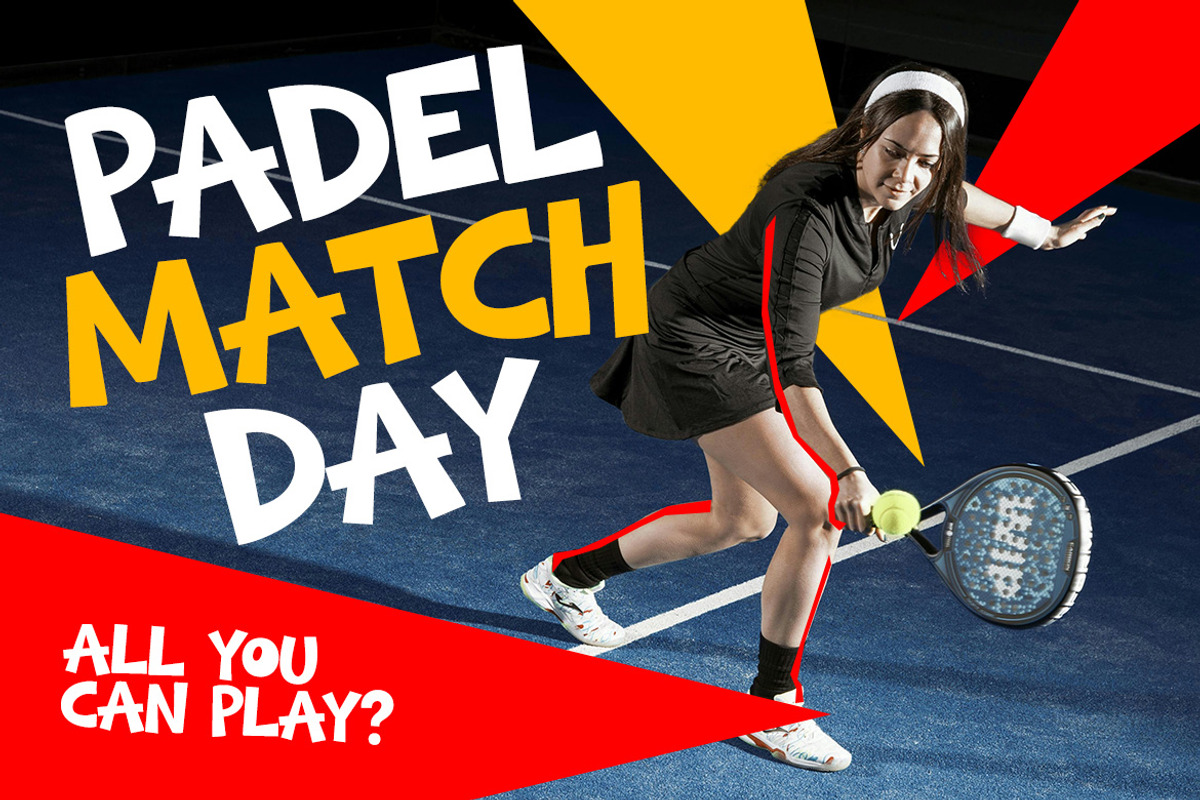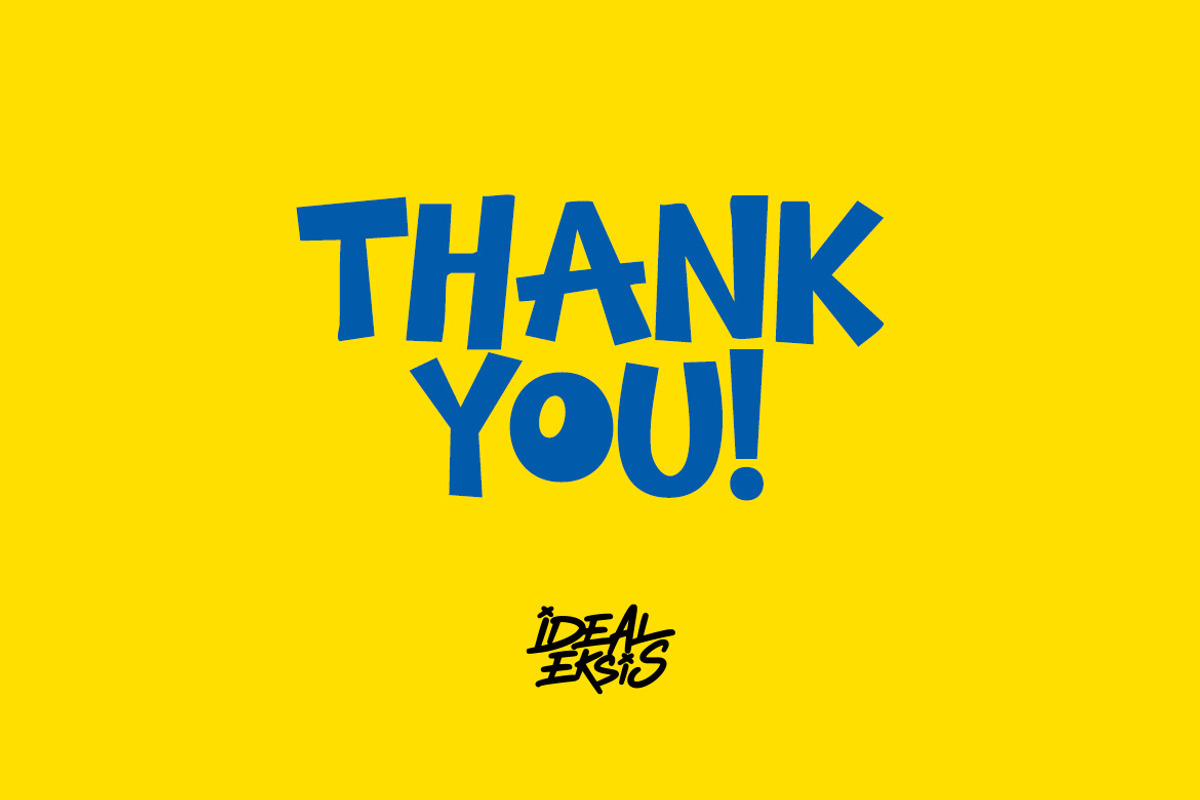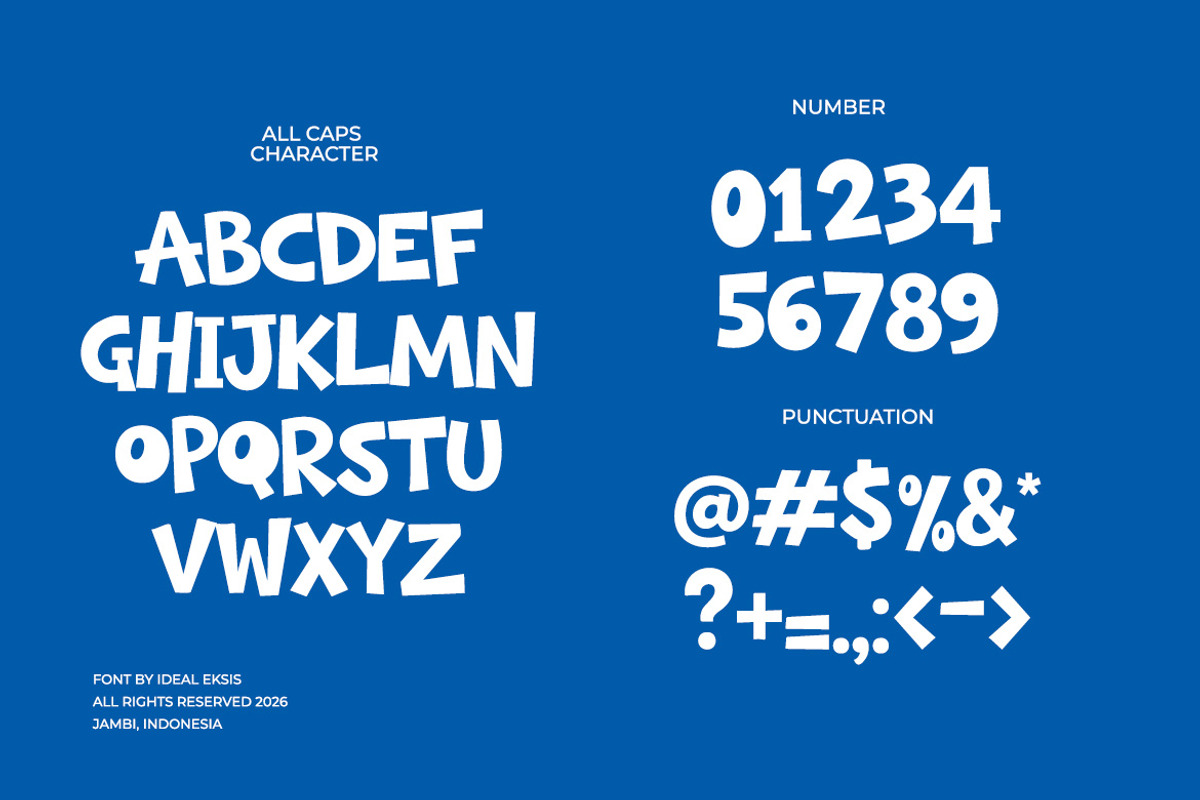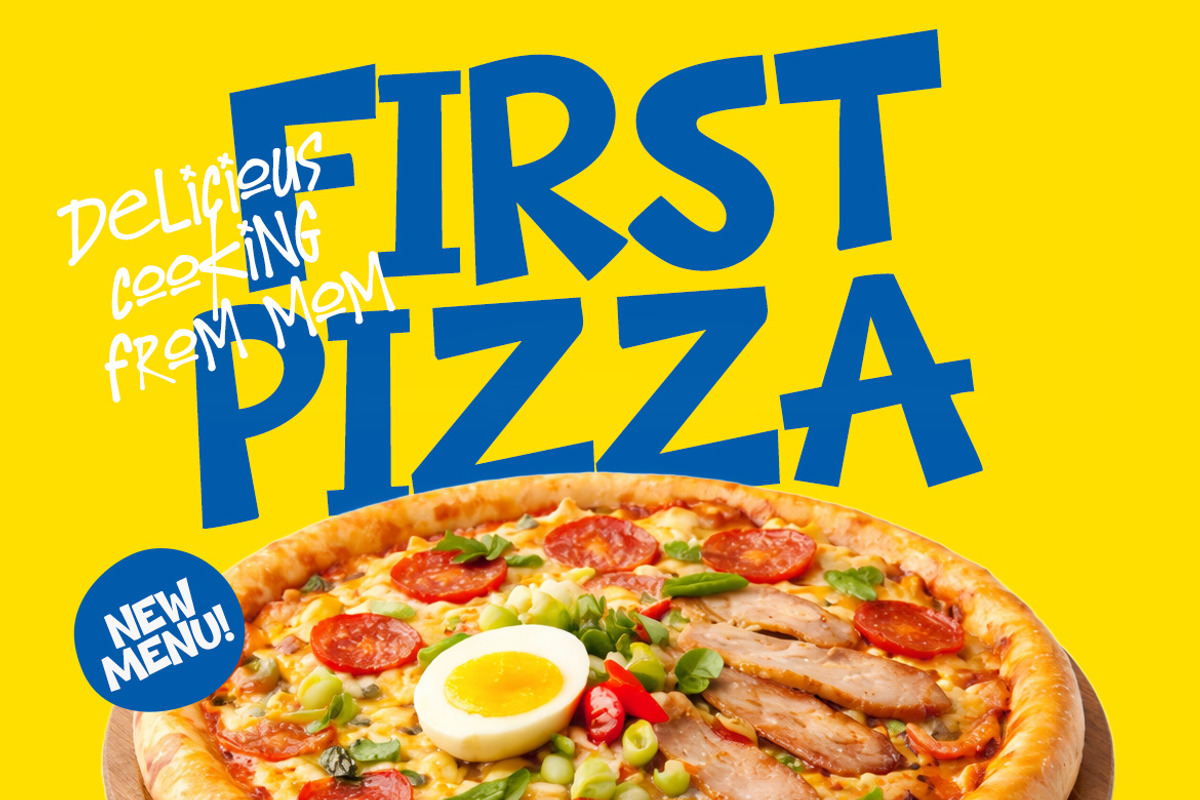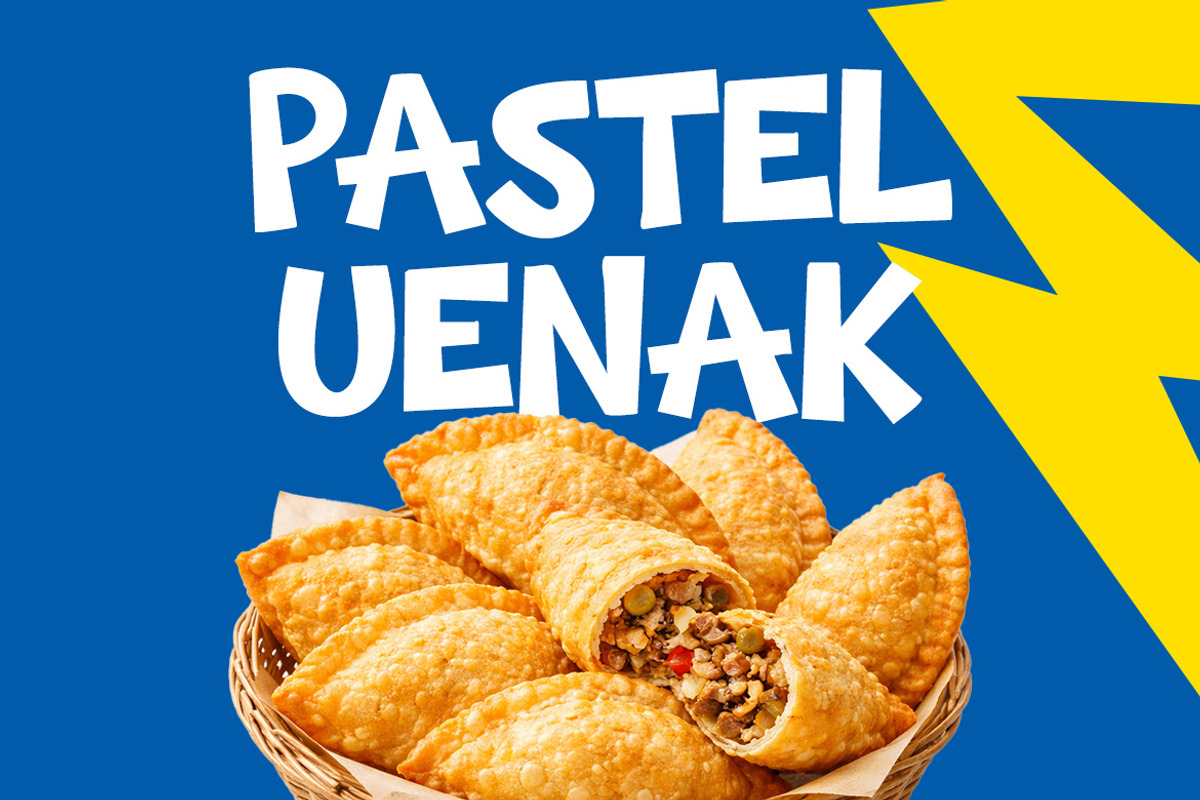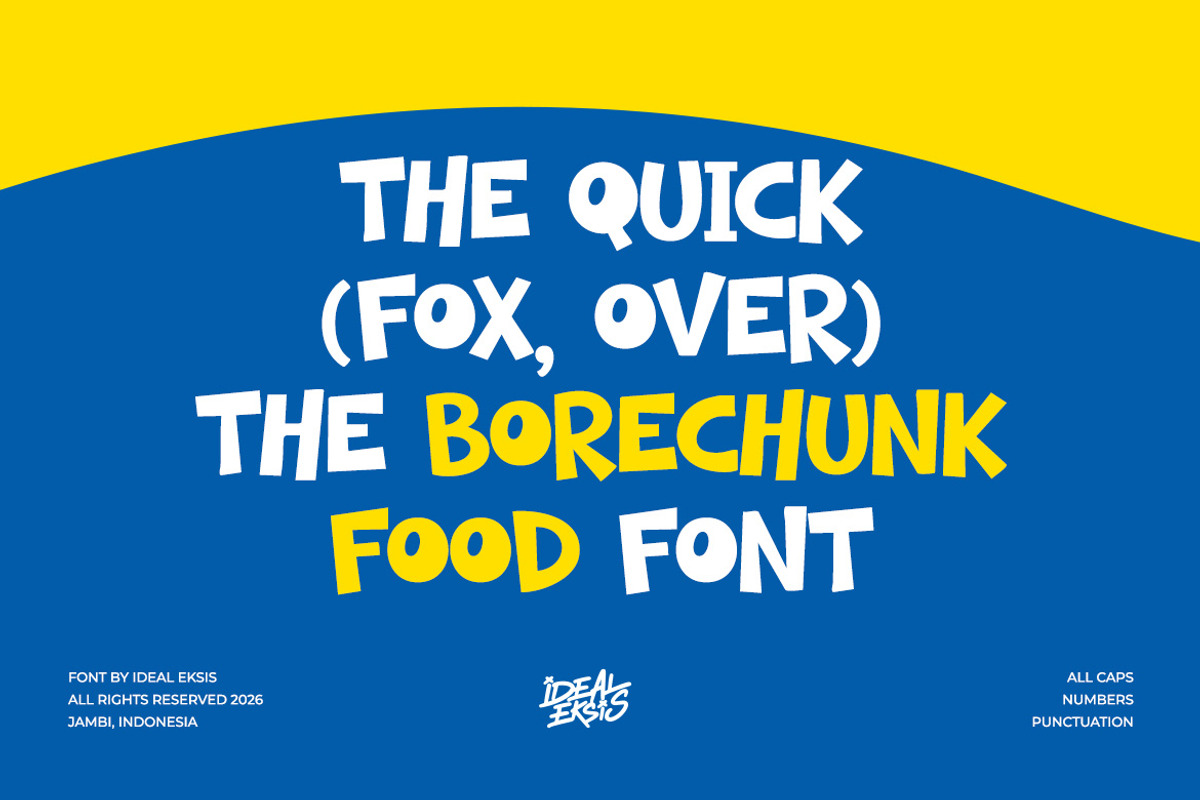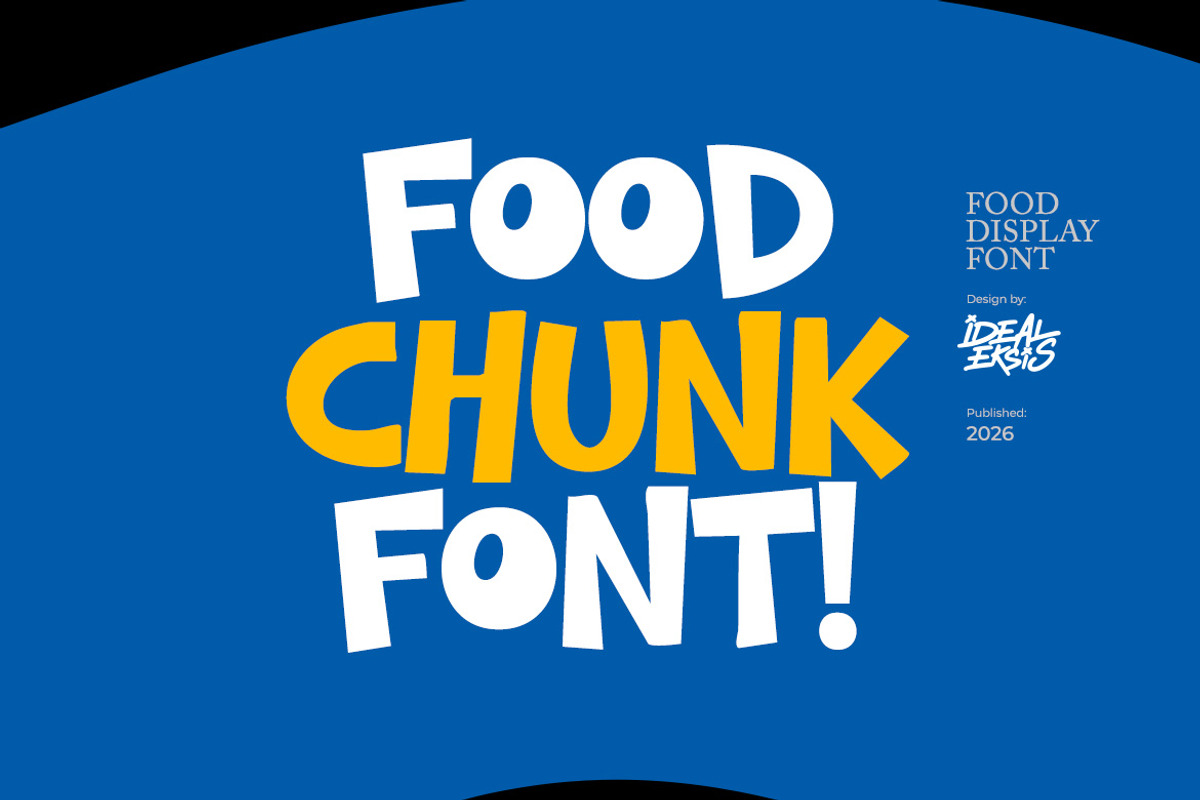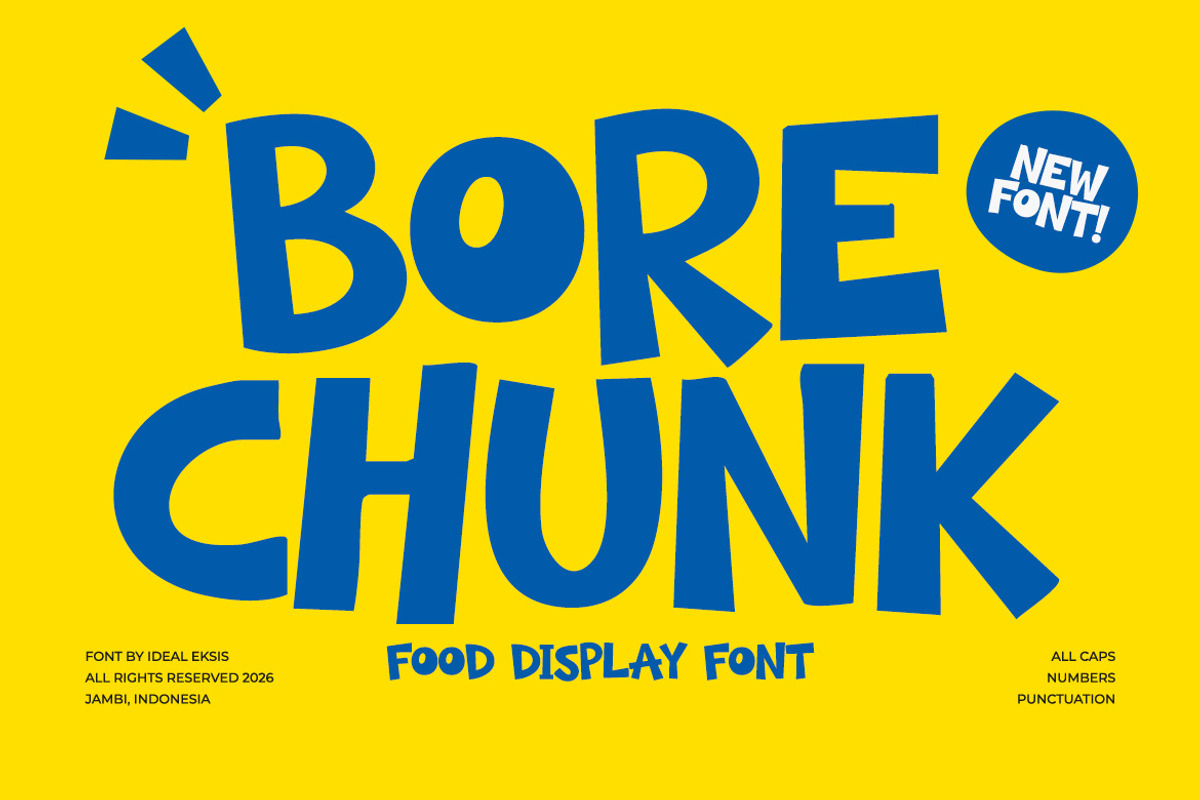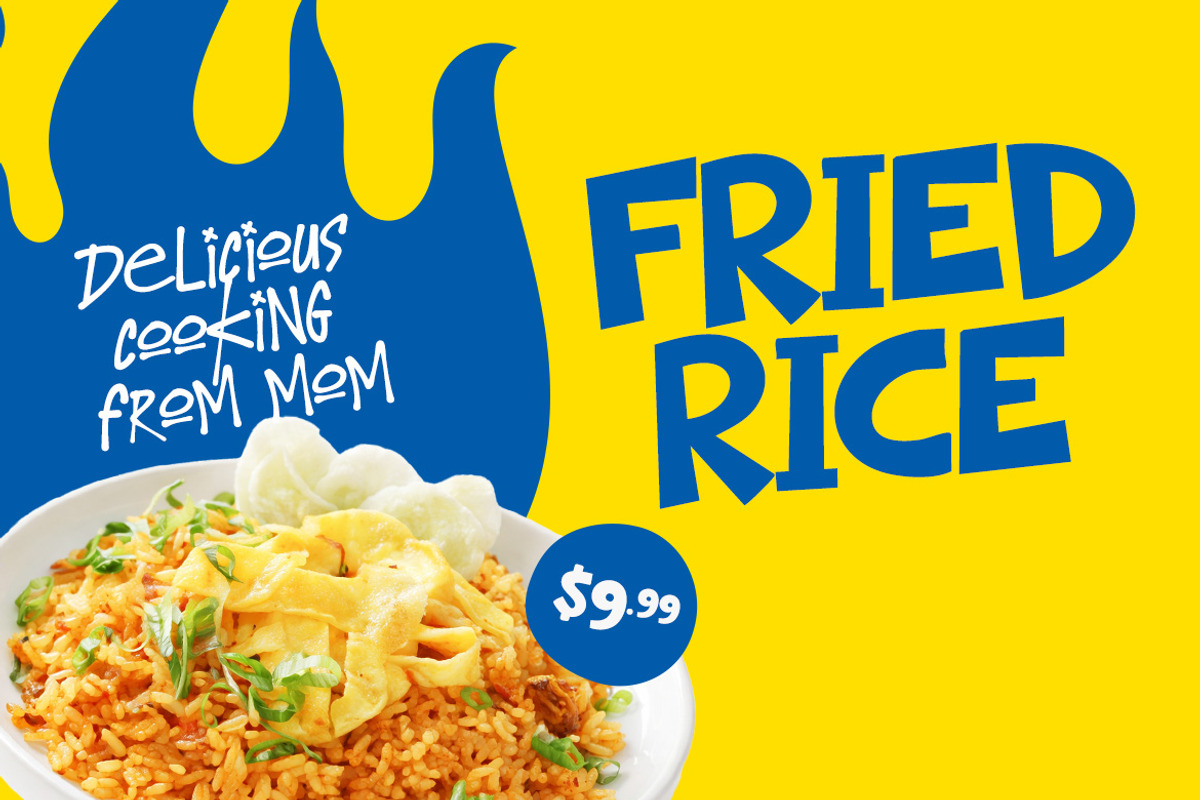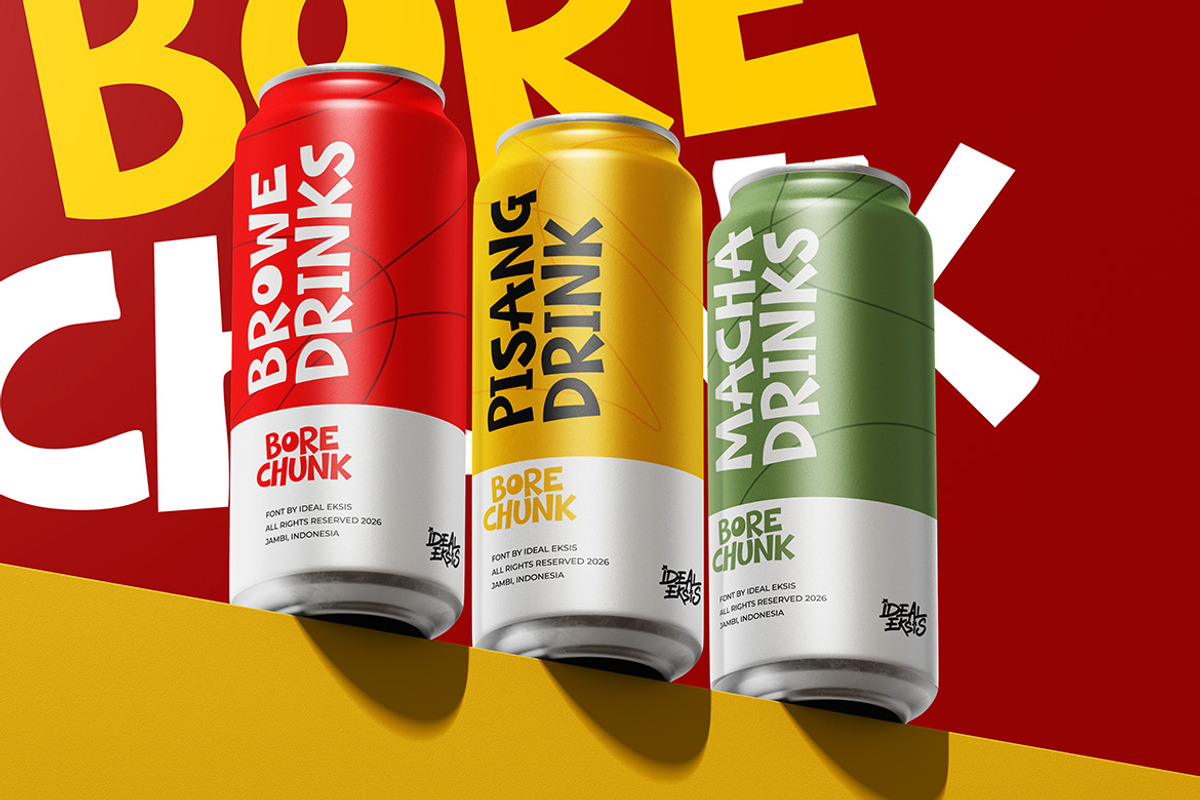
Bore Chunk - Food Font
Bore Chunk is a heavy-weight display font characterized by its bold, chunky letterforms and slightly irregular, hand-drawn edges. The typeface exudes a playful and energetic vibe, making it ideal for high-impact headlines, poster designs, and branding projects that require a touch of whimsy. Its thick strokes and low contrast ensure excellent legibility even at large scales, while the organic terminals add a unique, tactile quality to the design. This all-caps font is perfect for comic books, social media graphics, and creative packaging where a strong, friendly presence is needed.
Uppercase (All Caps)
Numerals
Perfect for
Bakery and café branding
Food and beverage logos
Restaurant menus and signage
Coffee shop and donut shop designs
Food packaging and labels
Social media food promotions
Kitchen-themed posters and prints
Culinary blogs and recipe graphics